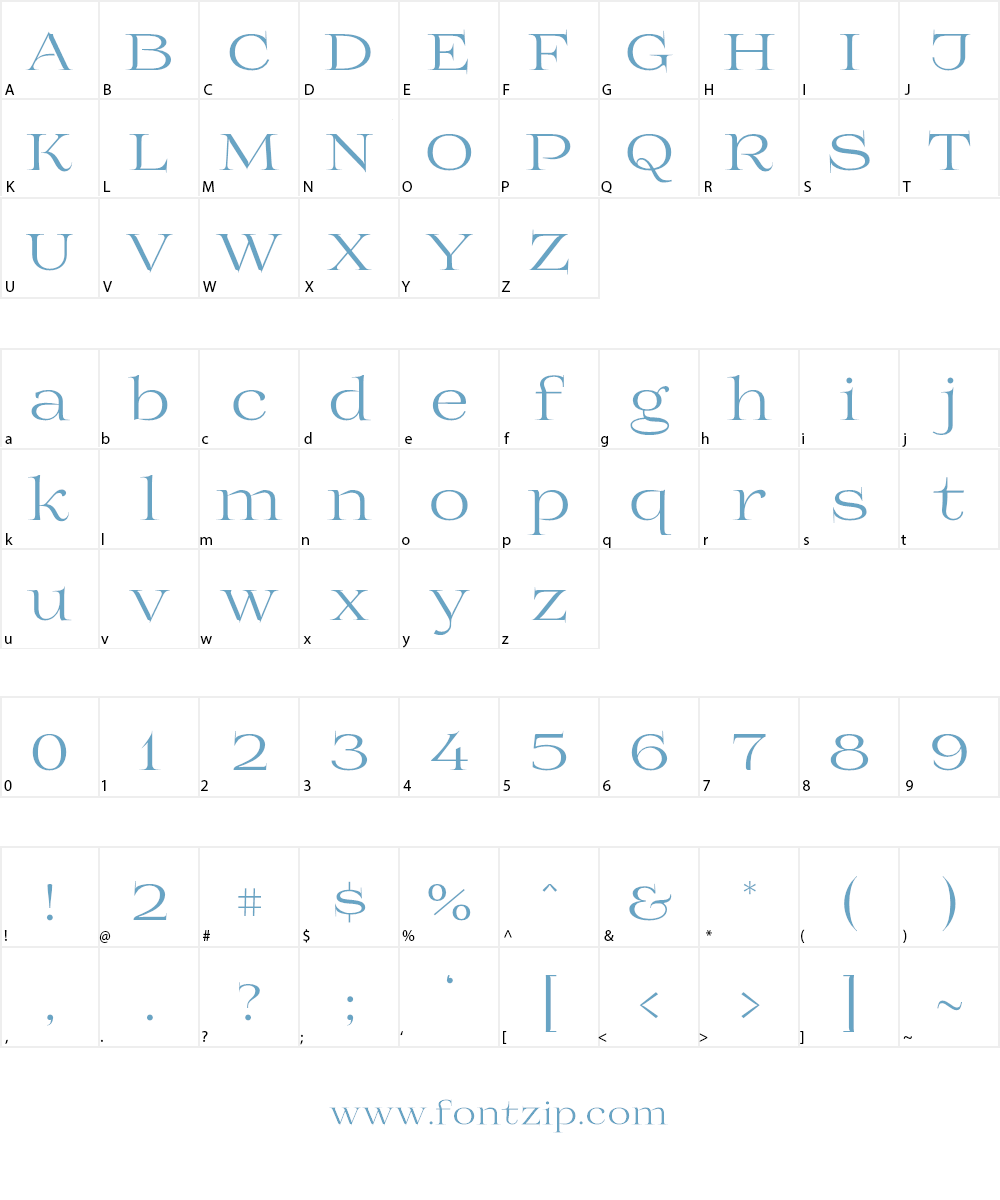
Dec­o­ra­tive font fam­ily Prida01: reg­u­lar, bold, black and light with 5 styl­is­tic sets, ini­tial and ter­mi­nal forms, lig­a­tures and con­tex­tual alternates.